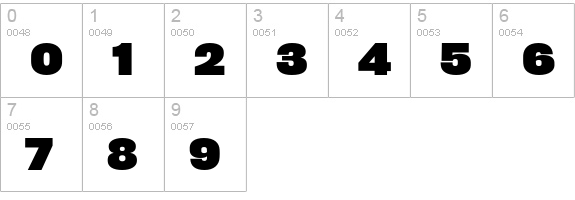
Rhode-BoldNormal Font Details
Rhode-BoldNormal is a stunning and versatile font that exudes elegance and professionalism. With its bold and commanding presence, it captures attention and leaves a lasting impression. This font is perfect for various design projects, including logo designs, branding materials, headlines, and more. The Rhode-BoldNormal font features clean and crisp lines, creating a polished and sophisticated look. Its bold weight adds a touch of confidence and strength, making it ideal for bold statements and impactful designs. Whether used in print or digital media, this font ensures readability and legibility, even at smaller sizes. One of the best things about Rhode-BoldNormal is that it is free. Yes, you read that right. This amazing font can be freely downloaded at FontsMarket.com, one of the leading sources for high-quality fonts. Now, you can enhance your designs without breaking the bank. Downloading Rhode-BoldNormal is a breeze, and once you have it, you'll have a powerful tool at your disposal. Its versatility allows you to experiment with different styles and create unique and captivating designs. The font's timeless appeal ensures that it will remain relevant and stylish for years to come. So why wait? Take advantage of this incredible opportunity and download Rhode-BoldNormal for free at FontsMarket.com. Discover the endless possibilities that this font offers and elevate your design projects to new heights. Whether you're a professional designer or a creative enthusiast, Rhode-BoldNormal is a must-have in your font collection.